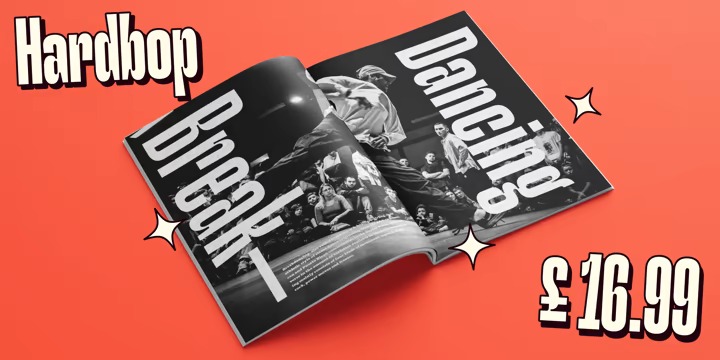
Hardbop Font Family
Hardbop Sans Serif Font
This is a neo-grotesque modern font that puts clarity and simplicity at the top. It’s also inspired by the prolific graphic work of Reid Miles for the covers of Blue Notes Records in the ’50s, Japanese jazz album covers of the ’70s and condensed and grotesque hand painted signs.
Hardbop also references classic fonts such as Impact, Bebas, Din, Frontage and TT Trailers, the latter in the exaggeration of certain characteristics such as counterforms and endings.